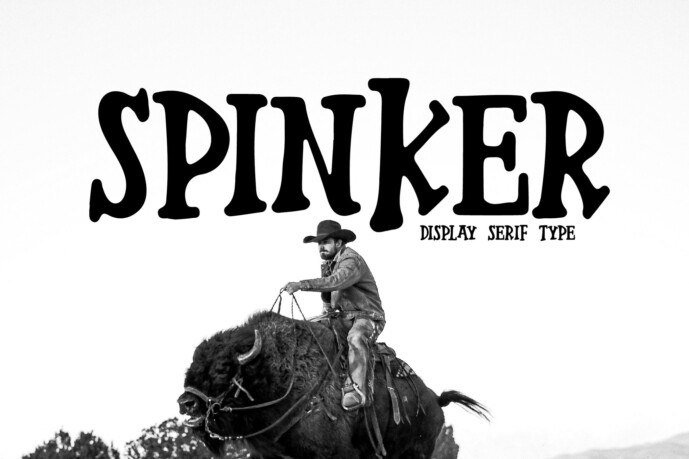
Spinker Font
Designer: Nu-Type
Introducing Spinker which has a unique and nice looking design. The font looks like serif but the lines are irregular so it looks more natural. Suitable for use in various media, book covers, posters, typography, promotions, and other digital media.